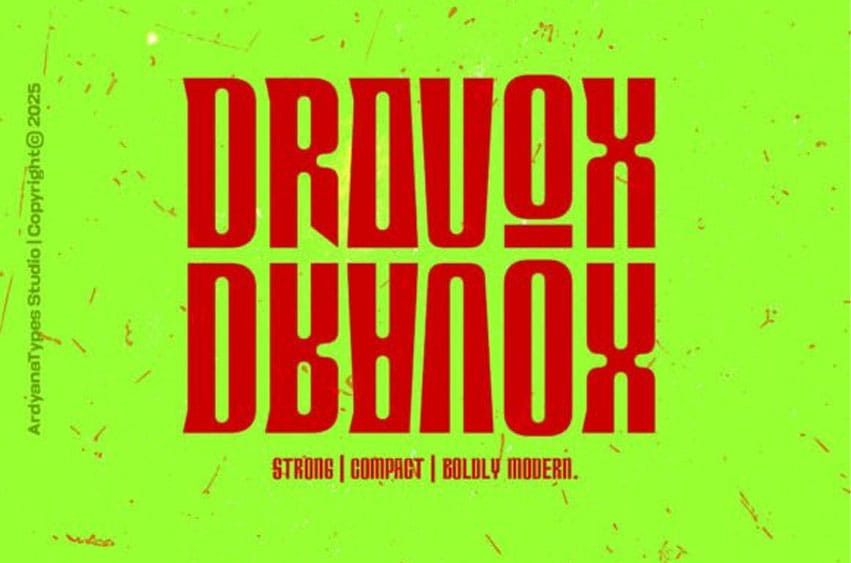
Dravox Font Make an immediate, powerful impact with Dravox, a strong, compact, and unapologetically bold display font that merges classic Wild West slab energy with sharp, contemporary flair.
This heavy, all-caps typeface is defined by its condensed verticality and dramatic, reverse-contrast serifs (where horizontal strokes are thicker than vertical ones), creating a striking visual tension. The slightly rough, distressed texture (seen in the background) complements its raw, uncompromising aesthetic.
Dravox is expertly suited for projects requiring high visual aggression and immediate attention.
It is perfect for heavy rock album covers, edgy streetwear branding, masculine product packaging, large sports posters, and impactful vintage-meets-modern logos. Use this font to convey intensity, durability, and a bold, rebellious statement that is impossible to ignore.